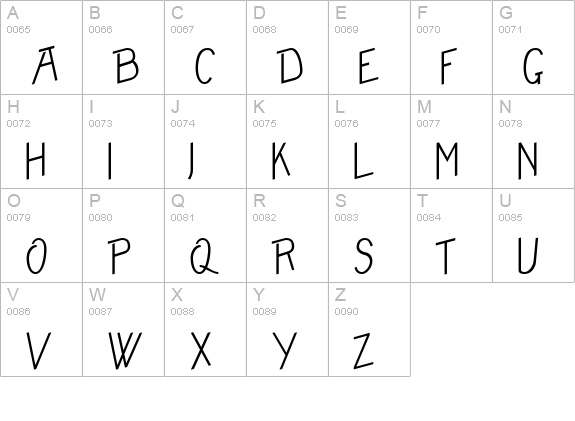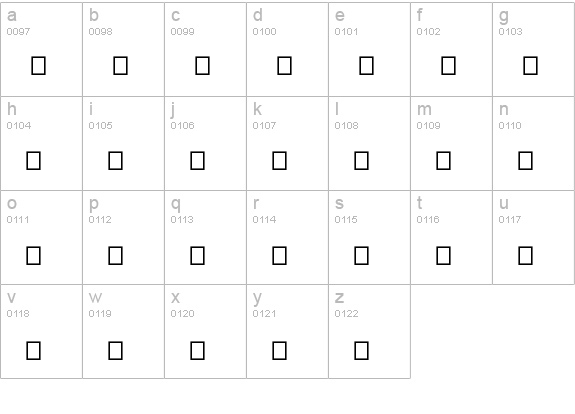
Freame-Plain Font Details
Freame-Plain font is a versatile and modern typeface that exudes simplicity and elegance. Its clean lines and minimalistic design make it perfect for a wide range of design projects, from branding to editorial work. The Freame-Plain font offers a sense of sophistication and readability that will elevate any text it is applied to. What sets Freame-Plain font apart is that it is not only stylish and functional but also completely free to download. Yes, that's right – you can access this high-quality font at no cost on FontsMarket.com. So, whether you're a professional designer looking to add a fresh font to your collection or a hobbyist in need of a sleek typeface for a personal project, Freame-Plain font is the perfect choice. Download it now and elevate your designs with this beautiful and free font.